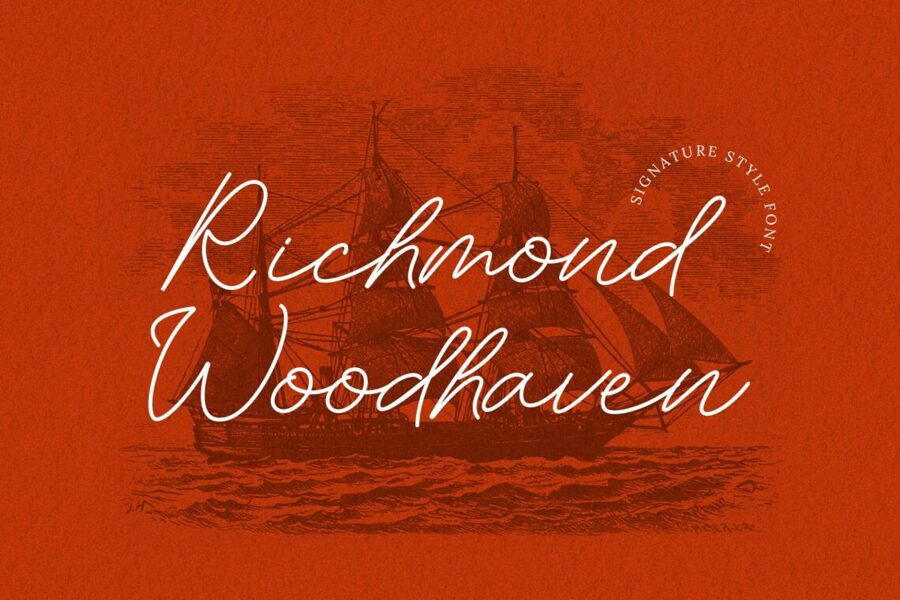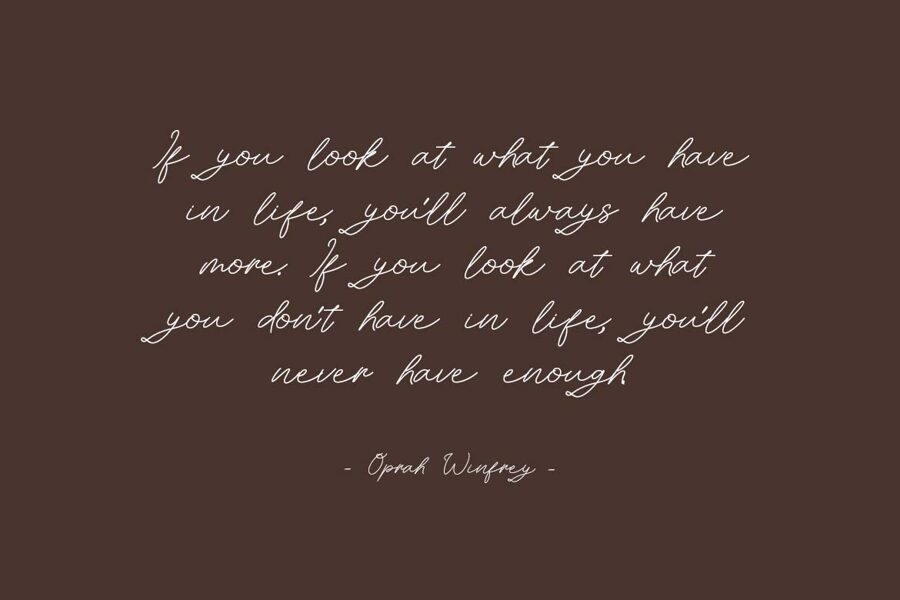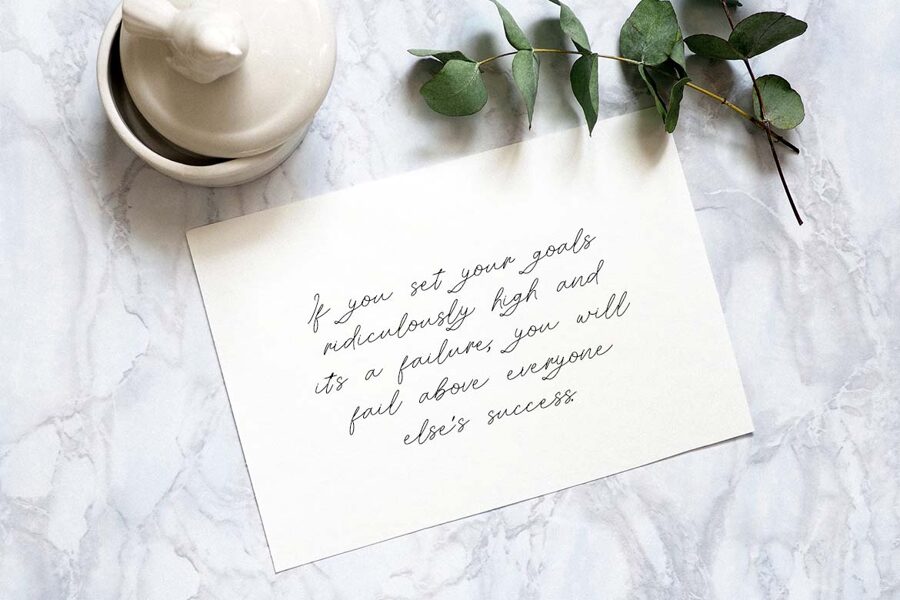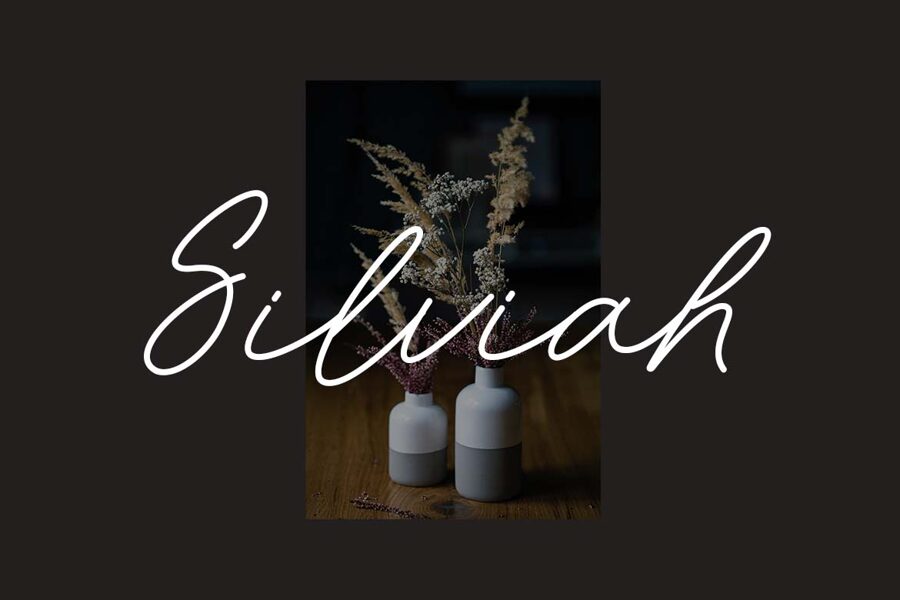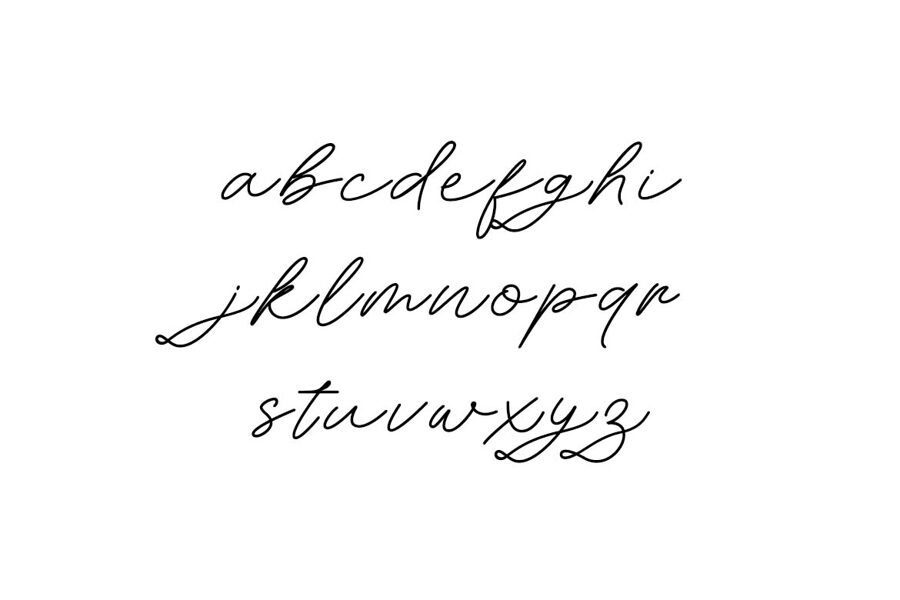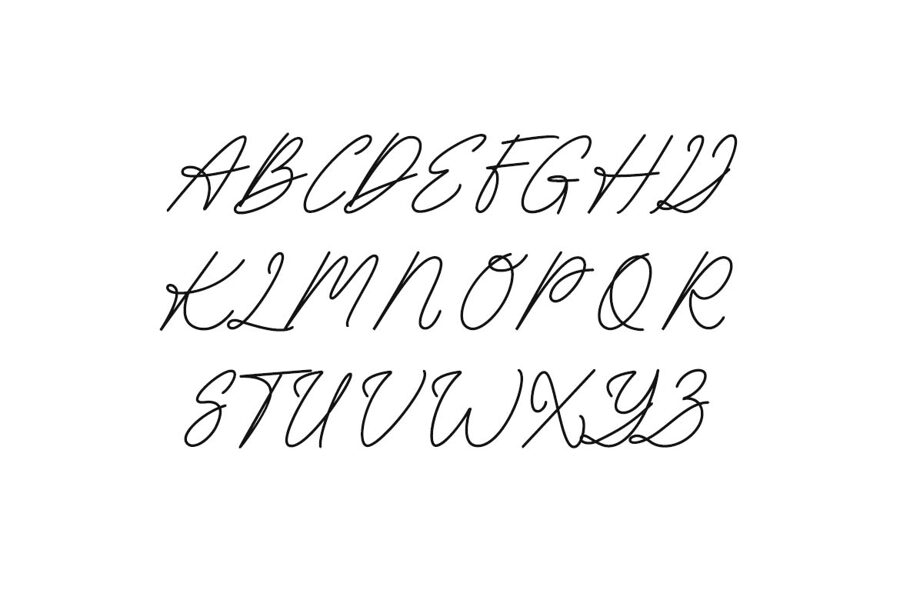
Richmond Woodhaven is an elegant signature-style font featuring graceful curves, flowing strokes, and a refined handwritten character.
Its sophisticated calligraphic appearance is ideal for wedding invitations, branding, logos, personal signatures, social media graphics, packaging, and stylish editorial designs. The natural letterforms add warmth and personality while maintaining a polished, luxurious feel.